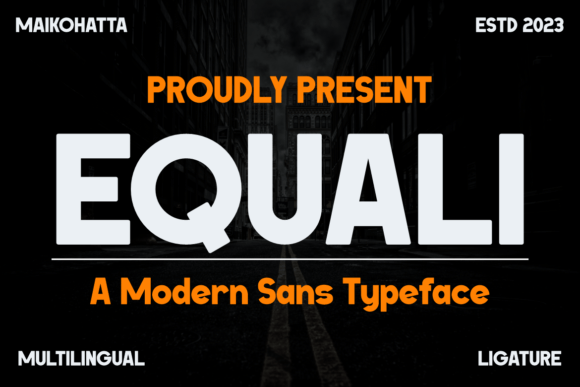
Introducing Equali Font - The Bold and Unparalleled Sans Serif Masterpiece
Embark on a typographic adventure with Equali, the sans serif font family that commands attention and leaves an indelible mark. Equali is not just a collection of letters; it's an expression of power, elegance, and timeless beauty. Its unique letterforms, meticulously crafted by the talented maikofarazhatta, exude a captivating presence that elevates your designs to new heights.
With Equali, you have the power to transform ordinary text into captivating headlines, logos, and graphic designs that resonate with your audience. Its strong and confident strokes make it the perfect choice for creating bold statements that demand attention. Whether it's a branding project, a marketing campaign, or a personal creative endeavor, Equali is your ultimate weapon to make your words stand out and leave a lasting impression.
Unleash Your Creativity with Equali's Limitless Potential
Equali's versatility is simply breathtaking. It seamlessly adapts to a myriad of design styles, genres, and mediums. From sleek and minimalist projects to vibrant and expressive creations, Equali effortlessly complements your artistic vision. Its clean and contemporary aesthetic lends a touch of sophistication to any project, while its remarkable flexibility allows you to explore endless creative possibilities.
Experience the Allure of Equali's Best Font for Letter C
Among Equali's many captivating features, its exceptional rendition of the letter C stands out as a true masterpiece. The letter C in Equali is a work of art, meticulously crafted to embody grace, balance, and harmony. Its curves flow seamlessly, creating a visual symphony that entrances the eye. Whether you use it as a standalone element or as part of a larger composition, the letter C in Equali is guaranteed to captivate and inspire.
Equali - Your Gateway to a World of Typographic Excellence
Equali is more than just a font; it's a gateway to a world of typographic excellence. With its bold and confident strokes, its remarkable versatility, and its exceptional letter C, Equali empowers you to create designs that transcend the ordinary and leave an unforgettable mark. Embrace the power of Equali and elevate your creative projects to new heights. Download Equali today and unlock the boundless possibilities of typographic brilliance.